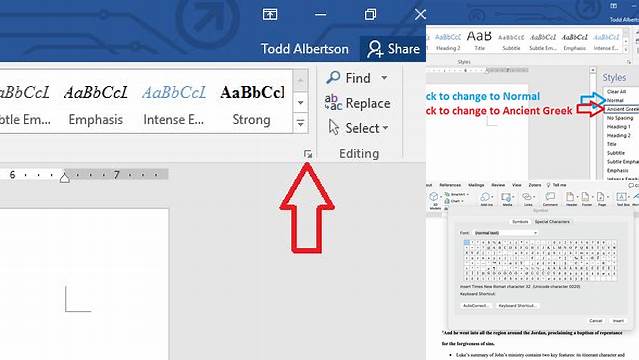
Use Ancient Fonts In Microsoft Word: A How-To Guide
Are you looking to infuse your documents with a touch of history? Do you want to add an ancient or classical flair to your writing? Well, you're in luck! Microsoft Word offers a variety of tools and techniques to incorporate ancient fonts into your projects. Whether you're a history enthusiast, a student working on a project, or simply someone who appreciates the aesthetic of bygone eras, this guide will walk you through everything you need to know. From identifying the right fonts to installing and using them effectively, we've got you covered. Let's dive in and explore the world of ancient fonts in Microsoft Word!
Identifying Ancient Fonts
First things first, what exactly do we mean by "ancient fonts"? Generally, this refers to typefaces that mimic the styles of writing from ancient civilizations, such as Roman, Greek, Egyptian, and even early forms of Asian scripts. These fonts often feature unique characteristics that reflect the tools and techniques used to create them, like the chiseled look of Roman inscriptions or the elegant curves of Greek calligraphy. Identifying these fonts can be a bit tricky, but here are some common categories and examples to get you started:
- Roman Fonts: Inspired by the inscriptions found on Roman monuments and buildings, these fonts often feature strong serifs (the small decorative strokes at the end of letterforms) and a balanced, symmetrical design. Examples include Trajan, which is based directly on the lettering of the Trajan Column in Rome. This font is excellent for titles and headings where you want to convey authority and historical significance. Another popular option is Garamond, which, while not strictly ancient, evokes a classical feel with its elegant and readable design. These fonts are perfect for creating a sense of timelessness and sophistication.
- Greek Fonts: Ancient Greek fonts often feature unique letterforms and a sense of fluidity. While modern Greek fonts are readily available, fonts that specifically mimic ancient Greek scripts can be harder to find. Look for fonts that include features like the uncial (rounded) letterforms or that are specifically designed for classical texts. You might need to search online font repositories for specialized options. Using Greek fonts can add an authentic touch to academic papers or creative projects related to ancient Greece.
- Egyptian Fonts: Hieroglyphic fonts are the most obvious choice here, but they are more suitable for decorative elements than extended text. Fonts that evoke the feel of Egyptian scripts often feature bold, angular designs and a sense of monumentality. While not directly replicating hieroglyphs, some display fonts incorporate Egyptian motifs and aesthetics. These can be used sparingly to create visual interest and highlight key themes.
- Other Ancient Scripts: Depending on your project, you might also be interested in fonts that mimic other ancient scripts like cuneiform, runes, or early Chinese calligraphy. These fonts can be more challenging to find and use, but they can add a unique and authentic touch to specialized projects. Remember to research the specific characteristics of the script you're trying to emulate to ensure accuracy.
When identifying ancient fonts, pay attention to the details of the letterforms, the presence or absence of serifs, and the overall impression the font conveys. Does it look like it could have been carved in stone? Does it have a flowing, calligraphic quality? By considering these factors, you can narrow down your search and find the perfect font for your project.
- Online Font Repositories: The internet is your best friend when it comes to finding fonts. Websites like Google Fonts, Adobe Fonts (if you have an Adobe Creative Cloud subscription), DaFont, and Font Squirrel offer a wide variety of fonts, many of which are free or available for commercial use. Use the search terms like "Roman font," "Greek alphabet font," or "Egyptian hieroglyph font" to start your search. Be sure to check the license agreement for each font to ensure you're allowed to use it for your intended purpose.
- Specialized Font Foundries: Some font foundries specialize in historical or unusual typefaces. These foundries often offer higher-quality fonts with more extensive character sets and stylistic variations. While they may come at a cost, the investment can be worthwhile if you need a professional-looking and historically accurate font.
Incorporating ancient fonts into your Microsoft Word documents can add a touch of history, elegance, and visual interest to your projects. By identifying the right fonts, installing them correctly, and using them judiciously, you can create documents that are both visually stunning and historically accurate. So go ahead, explore the world of ancient fonts and let your creativity shine!